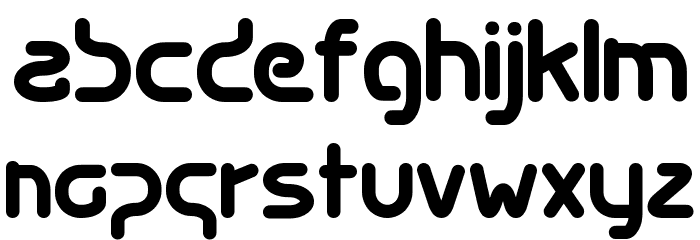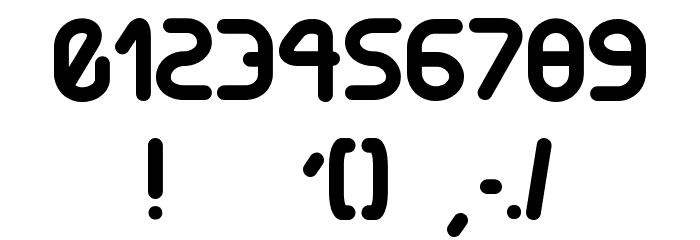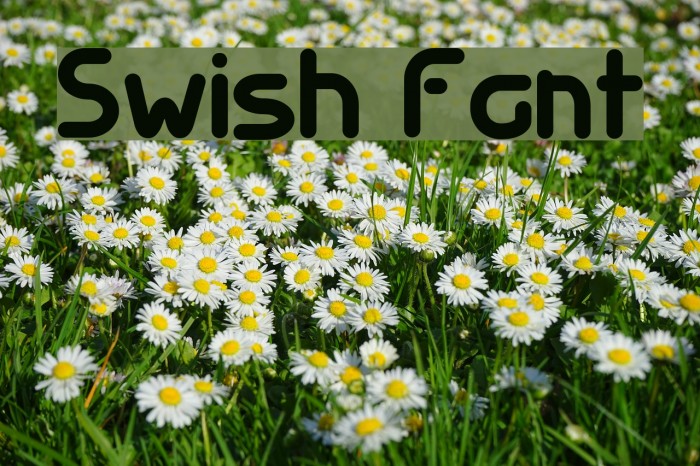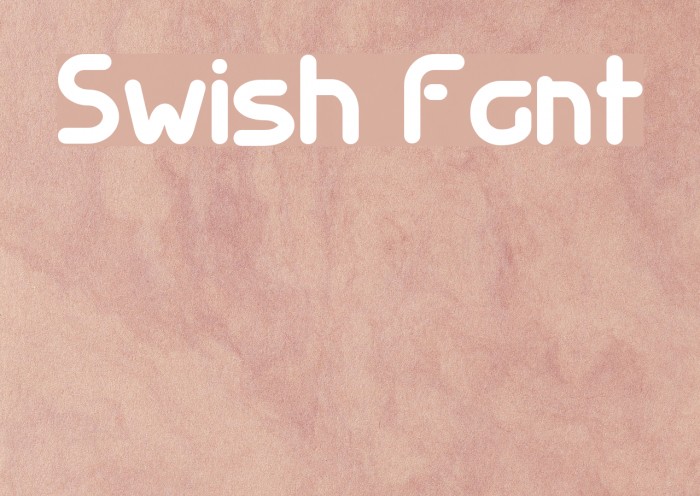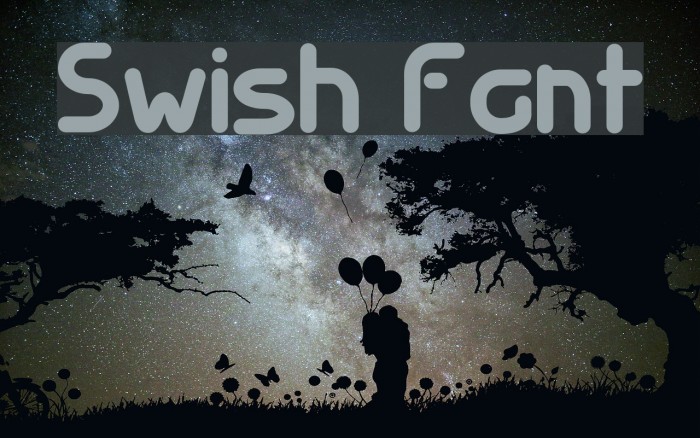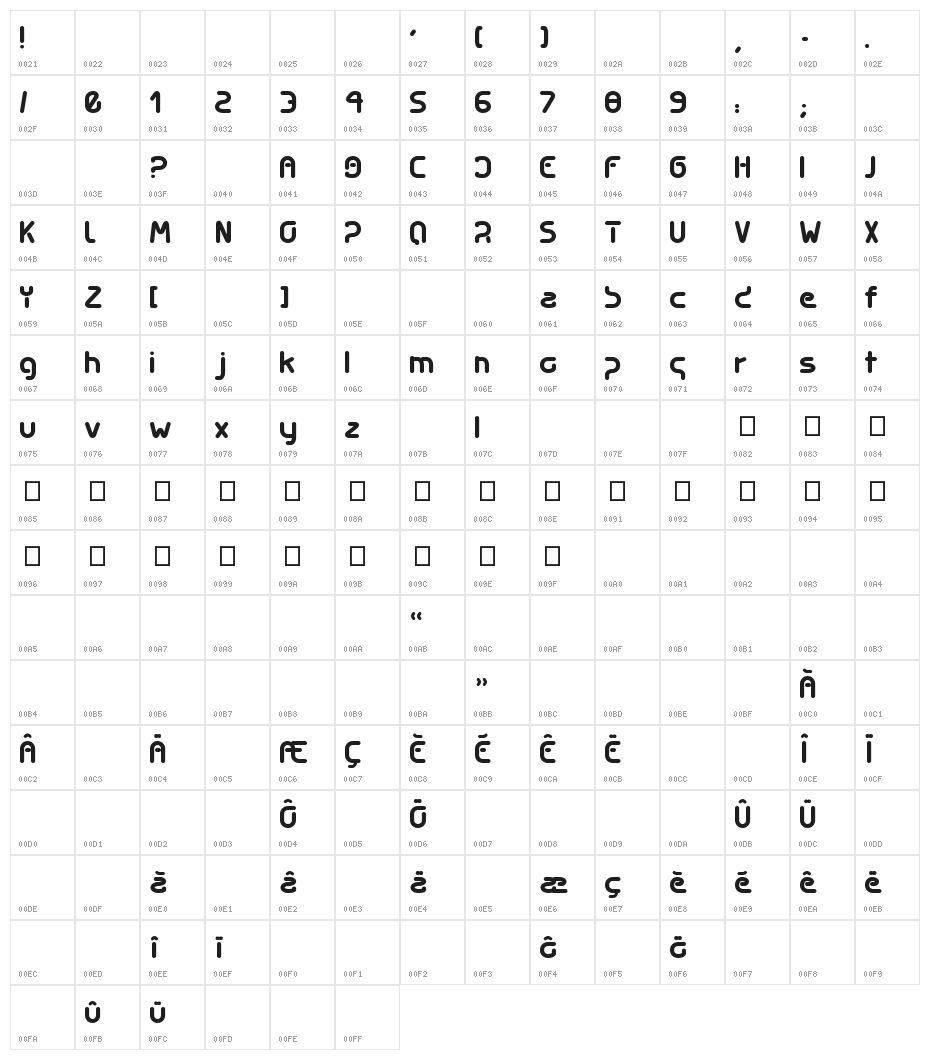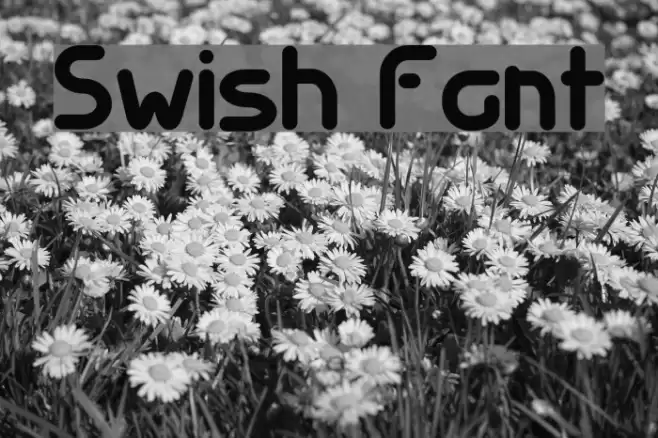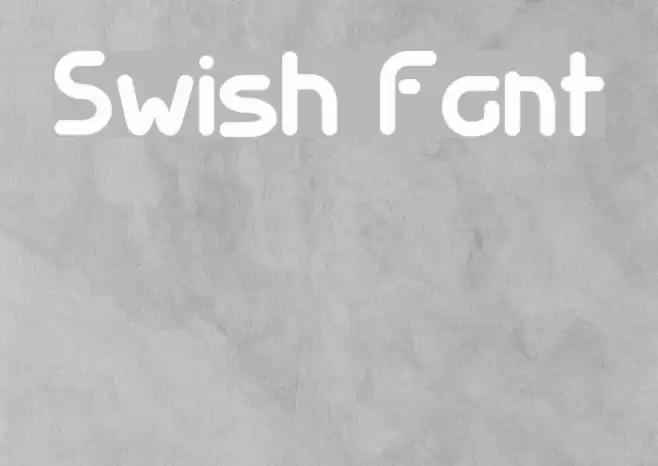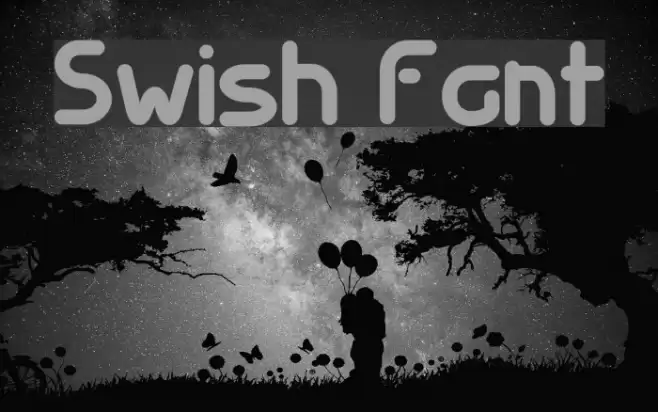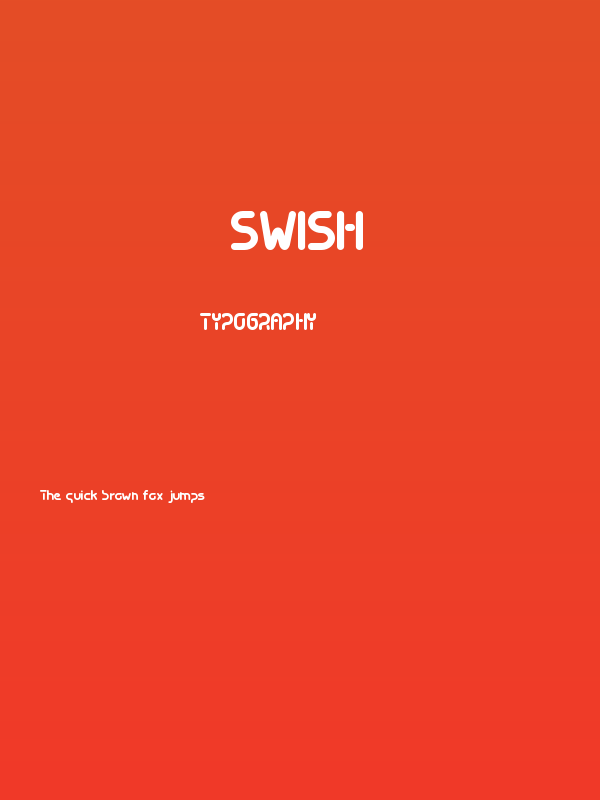
Swish Font
This font features a unique, rounded style with smooth curves and a modern aesthetic. The characters are bold and have a consistent thickness throughout, giving them a strong presence on the page. The rounded edges and uniform stroke width create a friendly and approachable look, making it suitable for a variety of design applications. The uppercase and lowercase letters maintain a cohesive style, with the numerals and special characters following the same design principles. This font's playful yet professional appearance makes it versatile for both digital and print media.
A modern, rounded font with bold, consistent strokes and a friendly aesthetic.
- Proposed Projects: Ideal for branding, advertising, packaging, and digital media projects where a modern and approachable look is desired.
- Use Case: Headlines, Logos, Branding